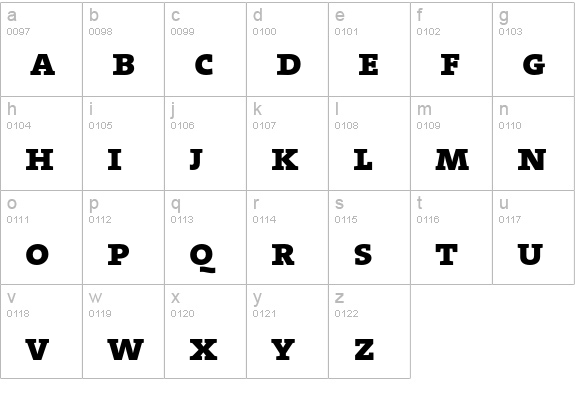
TheSerif ExtraBold Caps Font Details
TheSerif ExtraBold Caps is an extra-heavy, attention-grabbing variant in the TheSerif typeface family \xE2\x80\x94 well suited to high-impact headlines, posters, and bold branding.
TheSerif ExtraBold Caps is a striking and bold font that exudes confidence and sophistication. Its strong and sturdy letterforms command attention and make a statement in any design project. With its clean lines and distinct serifs, this font is perfect for creating impactful headlines, logos, and branding materials. What makes TheSerif ExtraBold Caps even more appealing is that it is available for free download at FontsMarket.com. This means that designers and creatives can easily access and utilize this impressive font without any cost. Whether you are working on a personal project or a professional assignment, TheSerif ExtraBold Caps offers a versatile and high-quality typeface that will elevate your design to the next level. With its generous x-height and well-defined shapes, TheSerif ExtraBold Caps ensures legibility and readability even at smaller sizes. It also pairs well with other fonts, allowing for endless creative possibilities. Whether you want to create a modern and edgy design or a classic and timeless look, TheSerif ExtraBold Caps provides the versatility to bring your vision to life. In addition to its aesthetic appeal, TheSerif ExtraBold Caps also offers a wide range of language support, making it suitable for projects that require multilingual text. From English to Spanish, French to German, this font can adapt to different languages seamlessly. So why wait? Download TheSerif ExtraBold Caps for free at FontsMarket.com and experience the power and versatility of this remarkable font. Whether you are a professional designer or a hobbyist, this font will undoubtedly enhance your creative projects and leave a lasting impression. Don't miss out on this opportunity to elevate your design with TheSerif ExtraBold Caps, the freely available font that combines boldness, elegance, and accessibility.